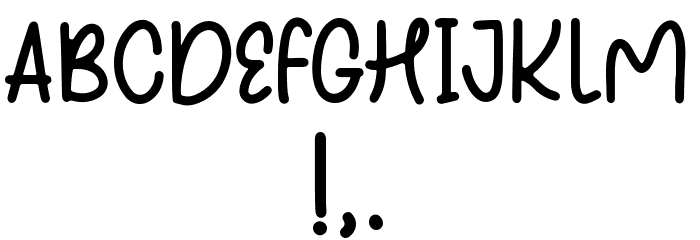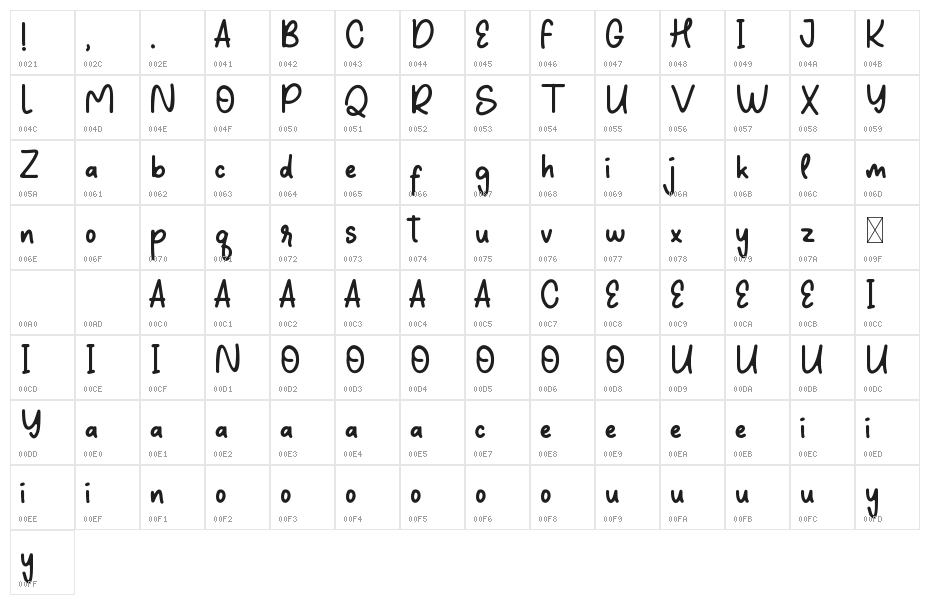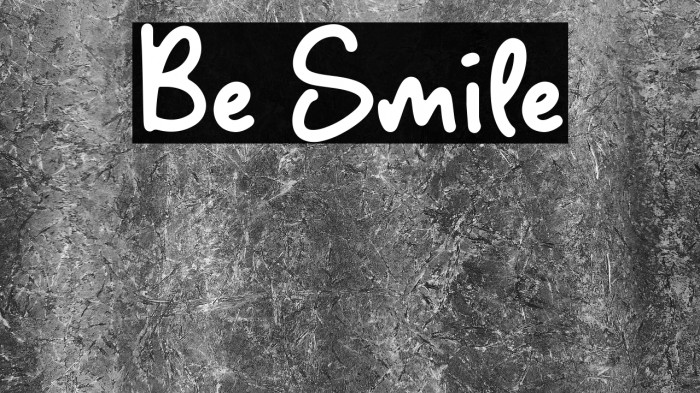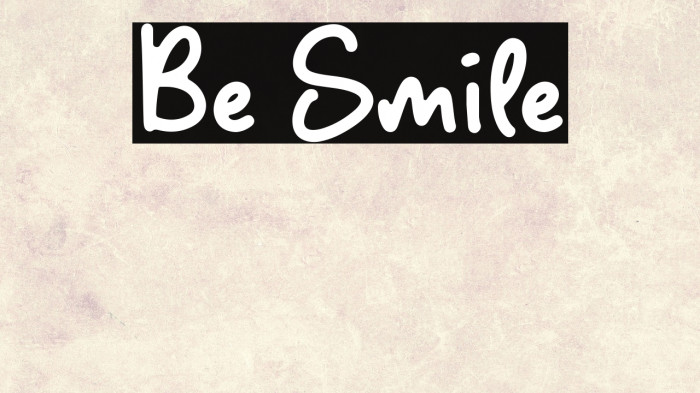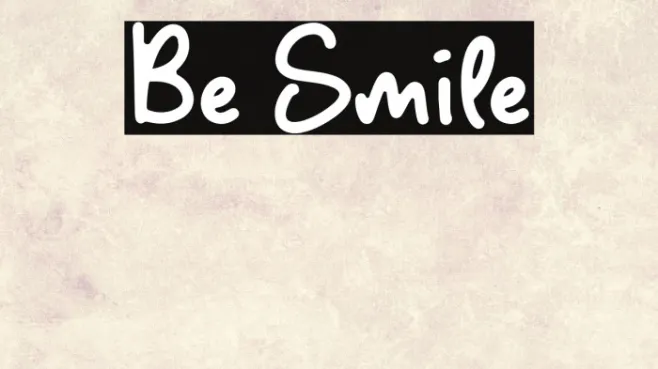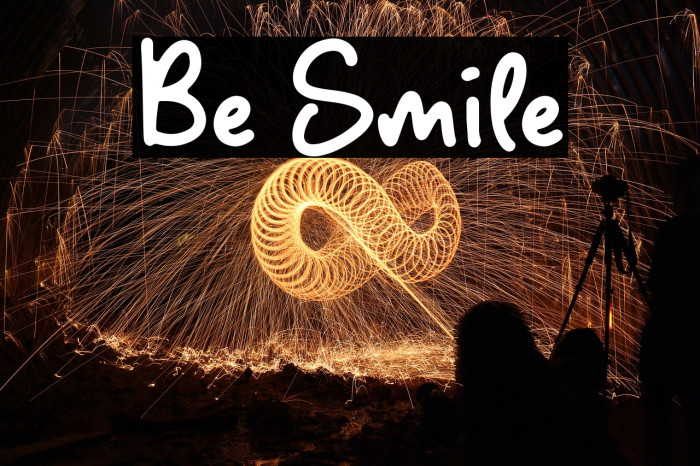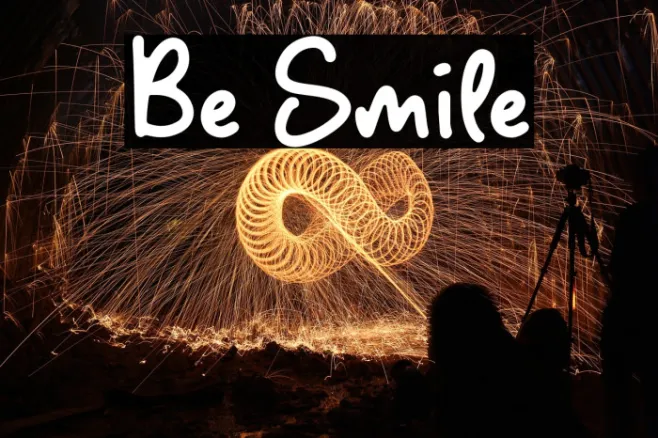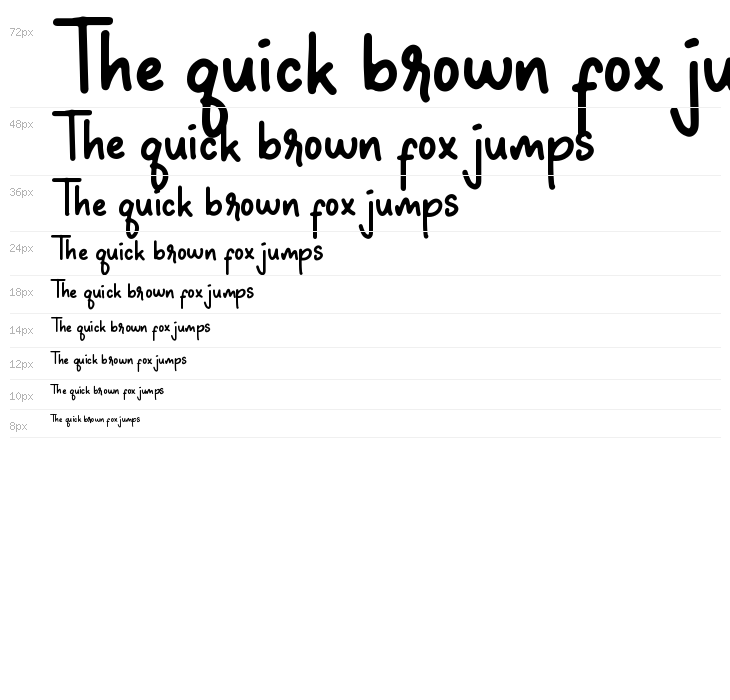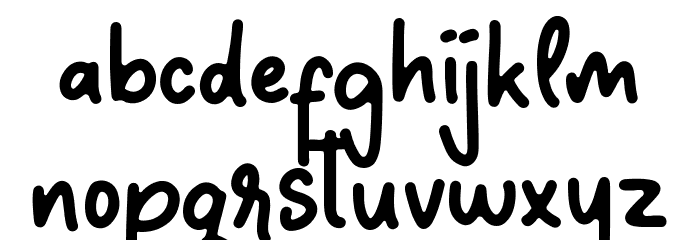
Be Smile Font
Be Smile Description
This playful and whimsical font features a handwritten style with smooth, rounded edges and a casual, friendly appearance. The letters are slightly irregular, giving it a natural and organic feel. The uppercase and lowercase characters maintain a consistent style, with a slight slant that adds to its informal charm. The numerals and special characters are designed to match the overall aesthetic, making it versatile for various creative projects. Its unique personality makes it suitable for designs that aim to convey warmth and approachability.
| Proposed Projects | Ideal for children's books, greeting cards, playful branding, and social media graphics. |